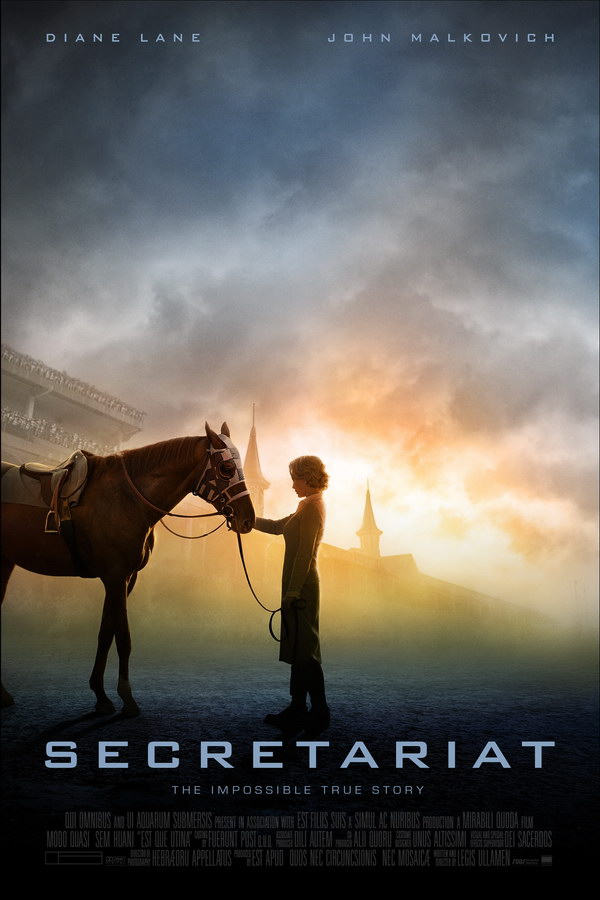
Secretariat Font
Fonts in UseSecretariat is a 2010 American sports drama film based on the true story of the racehorse Secretariat, who won the Triple Crown in 1973.
The "Secretariat" movie title is likely written using Bank Gothic Medium font designed by Morris Fuller Benton, which is a set of square capital letters inspired by the geometric forms of the Bauhaus movement. More information on Bank Gothic can be viewed here.